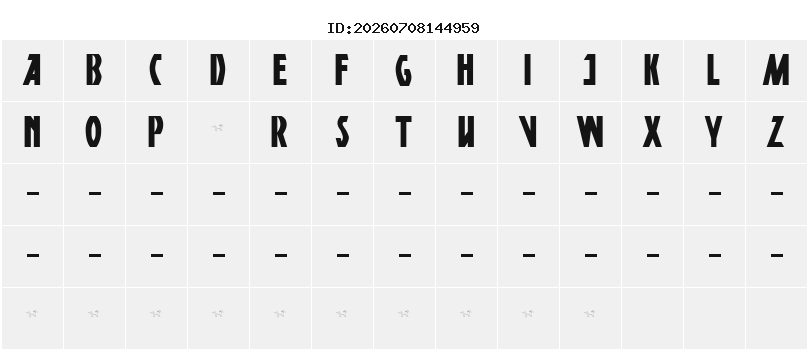
• Font Name: DSPosterPen
About DSPosterPen.ttf
DSPosterPen.ttf is a modern, elegant sans-serif font designed for ultimate readability and visual harmony. Perfect for branding, headlines, web design, and print materials.